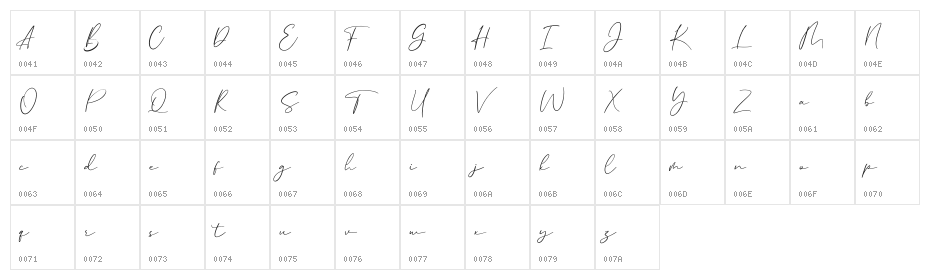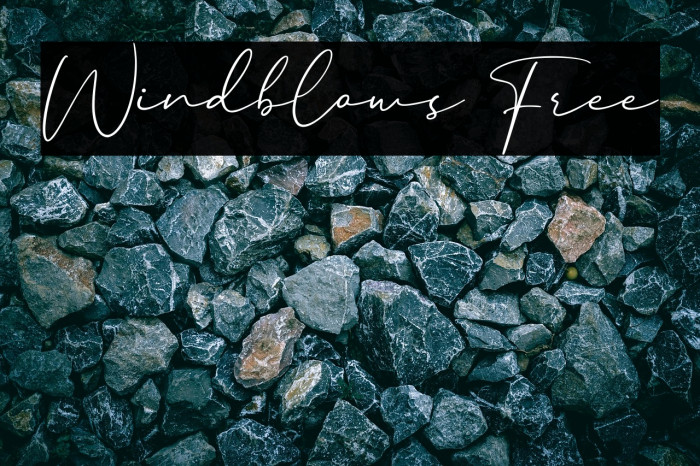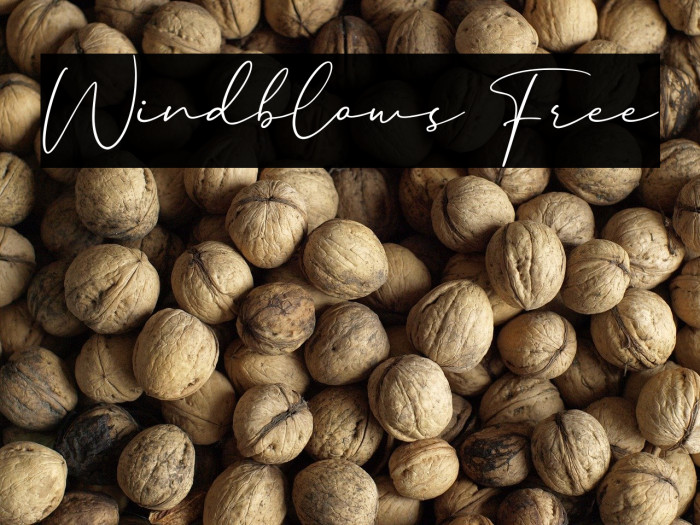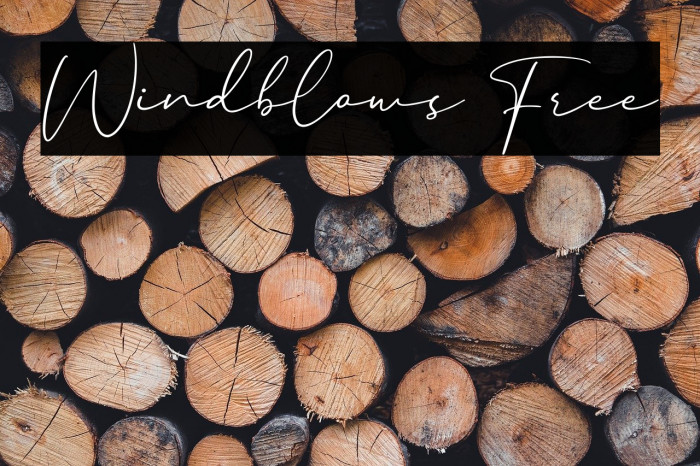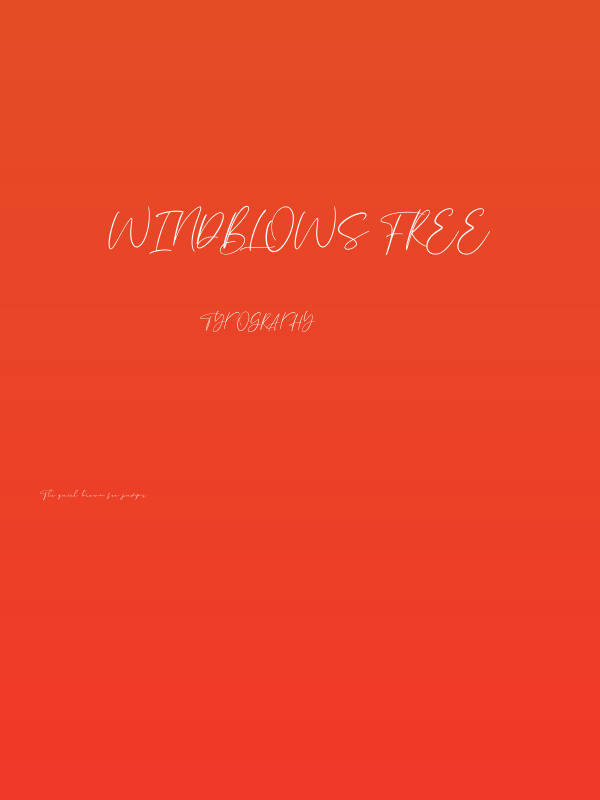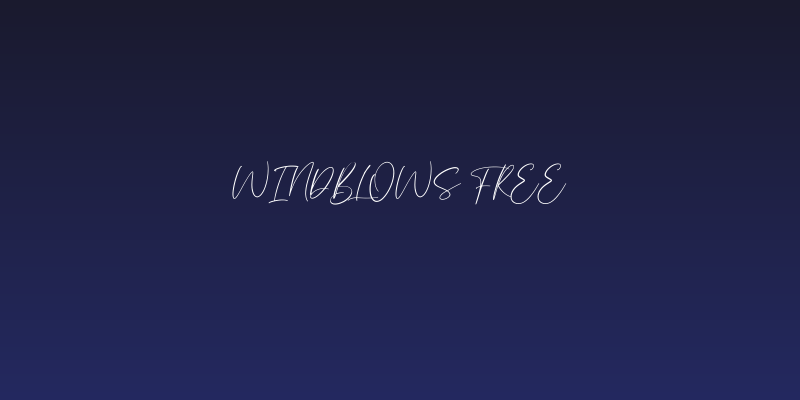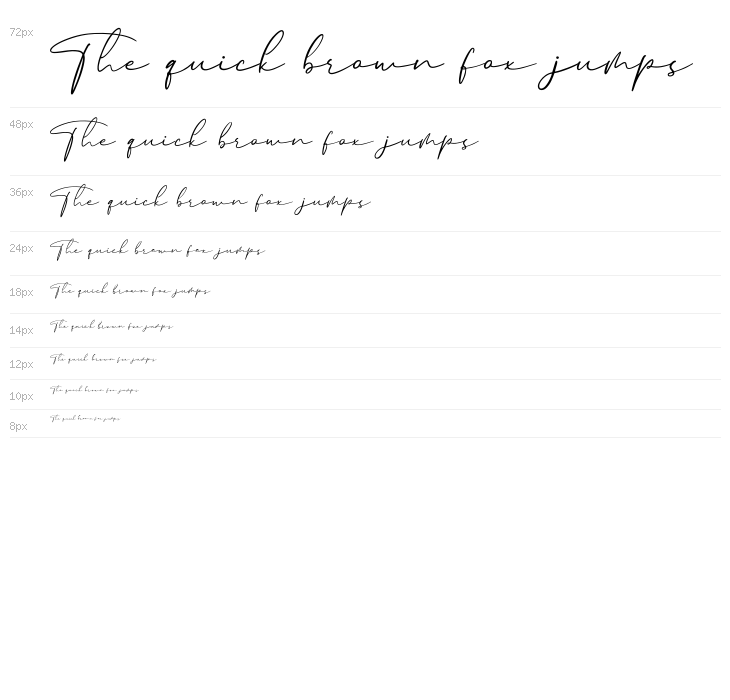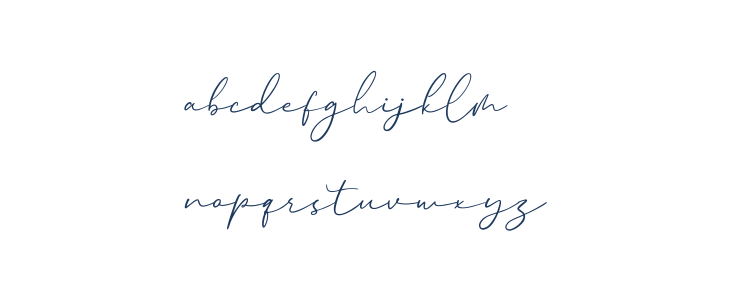
Windblows Free Font
Windblows Free Description
This font features a flowing, cursive style with elegant, elongated strokes that give it a handwritten appearance. The letters are interconnected, creating a seamless and fluid look. The uppercase letters are bold and prominent, while the lowercase letters maintain a delicate and airy feel. The overall design is sophisticated and artistic, making it suitable for creative and expressive projects. The font's thin lines and graceful curves add a touch of elegance and refinement, perfect for conveying a personal and intimate tone.
| Proposed Projects | Ideal for wedding invitations, personal branding, artistic projects, and elegant stationery. |